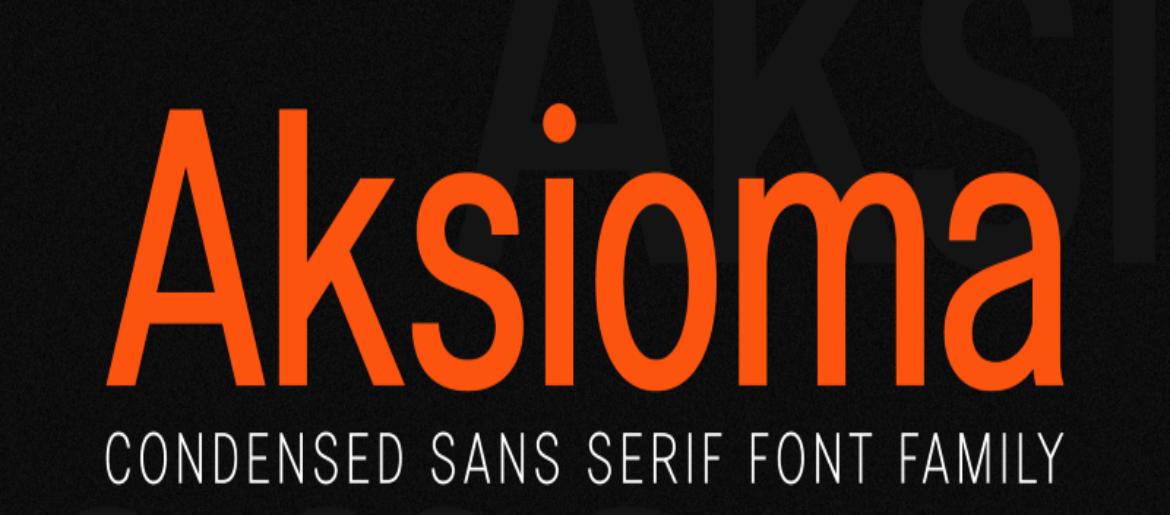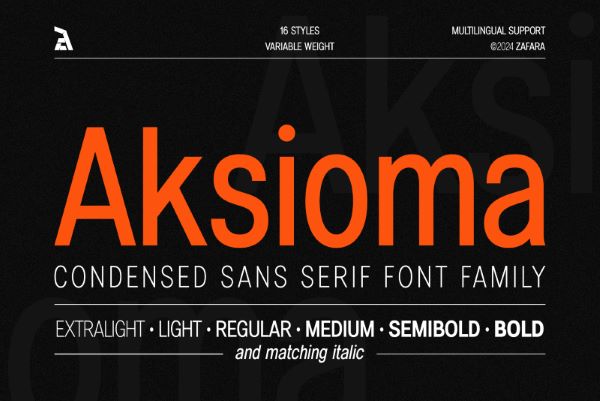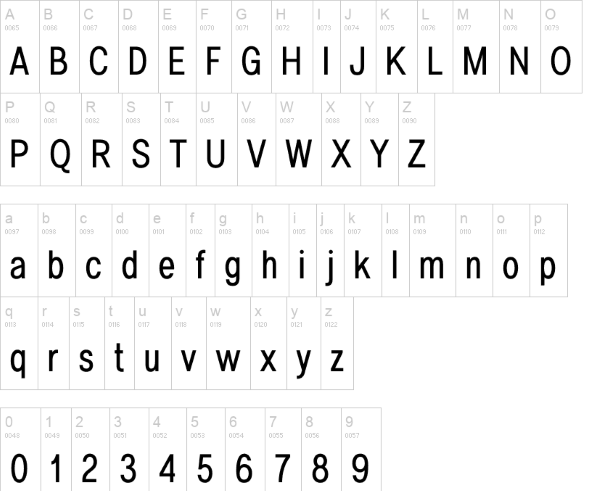
Aksioma Font
Aksioma Font is a condensed sans-serif font family created with a clean, modern aesthetic. Its narrow proportions provide smart space-saving benefits while maintaining strong visual impact. Designed for versatility, Aksioma works perfectly for posters, book covers, websites, brochures, business cards, logos, and headlines that require clarity, efficiency, and contemporary style.
➤ Font Name: Aksioma
➤ Designer: Zafara Studios
➤ Style: Sans serif